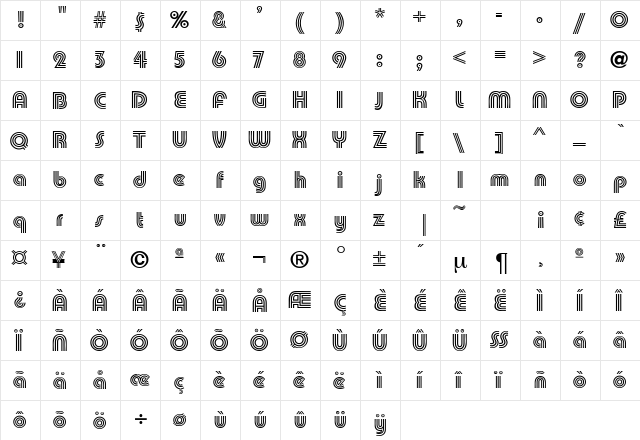
PumpkinDB Normal
Design Context for PumpkinDB Typeface
PumpkinDB is a composed and adaptable typeface that performs quietly and consistently across a wide range of design contexts.